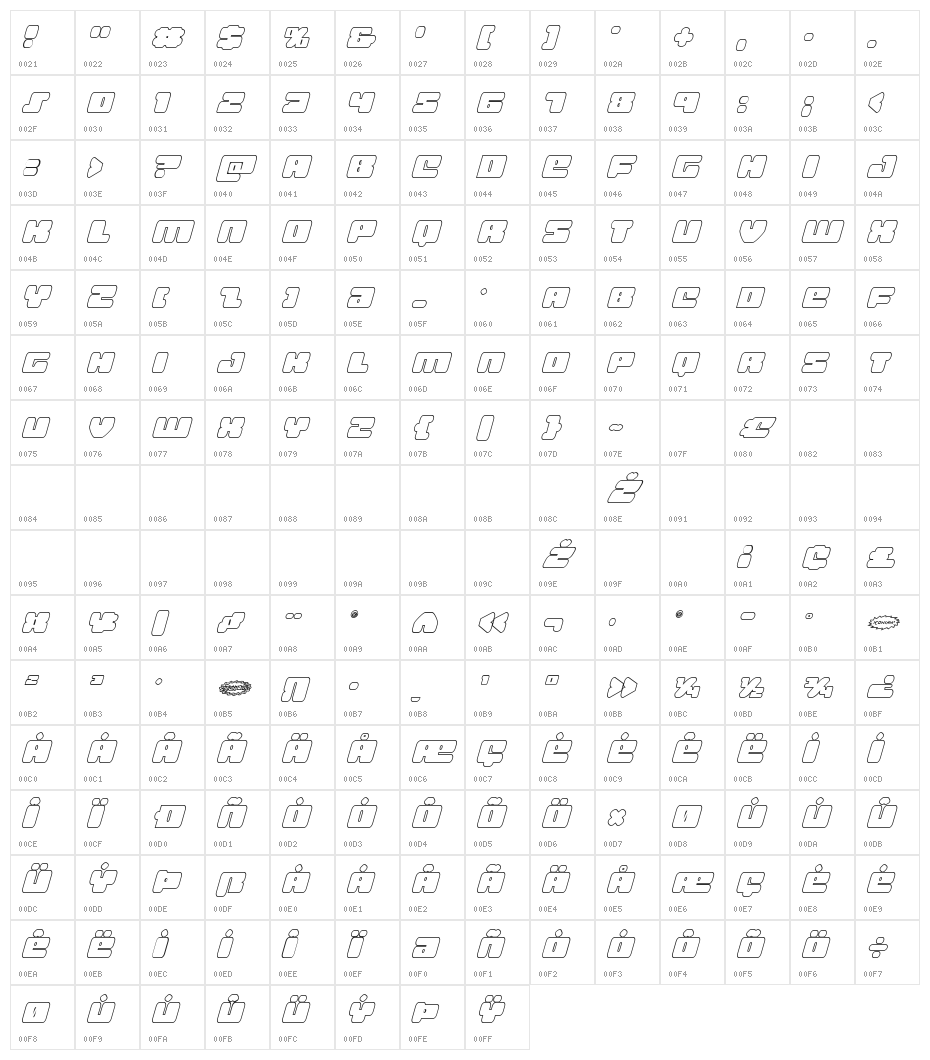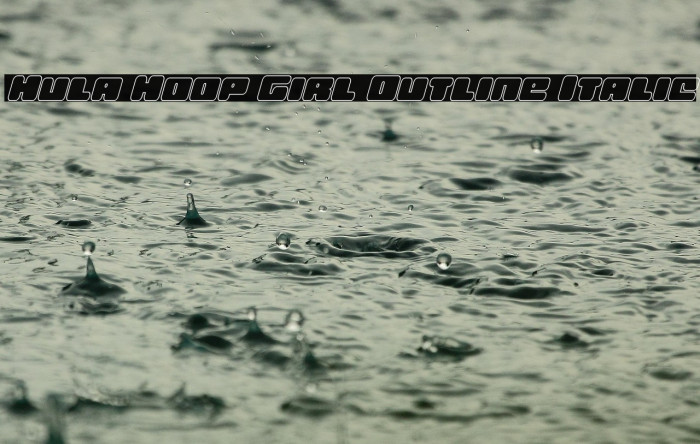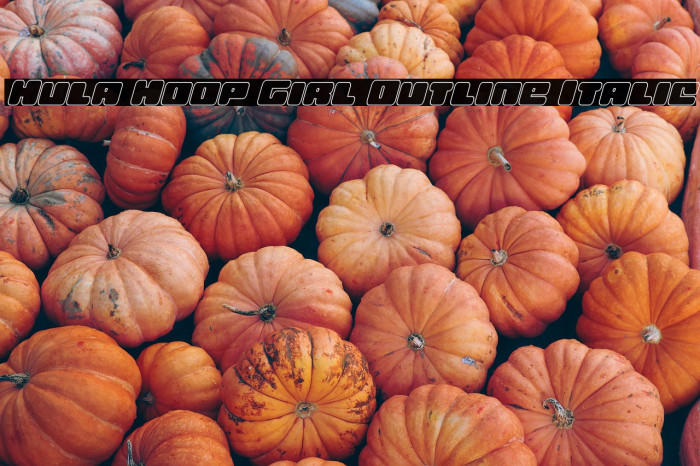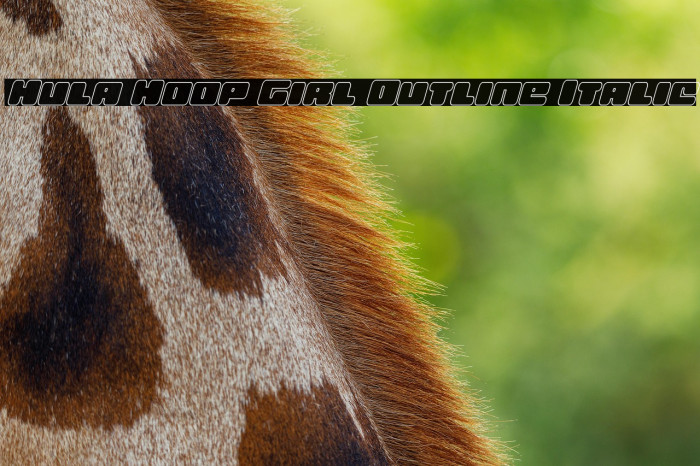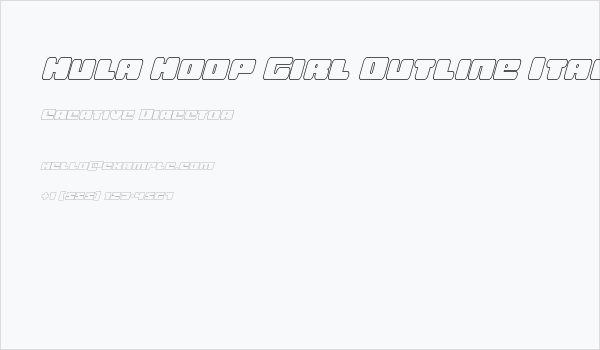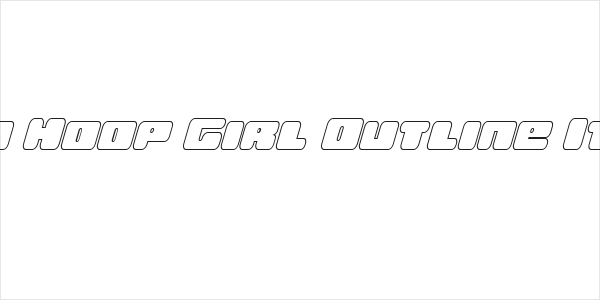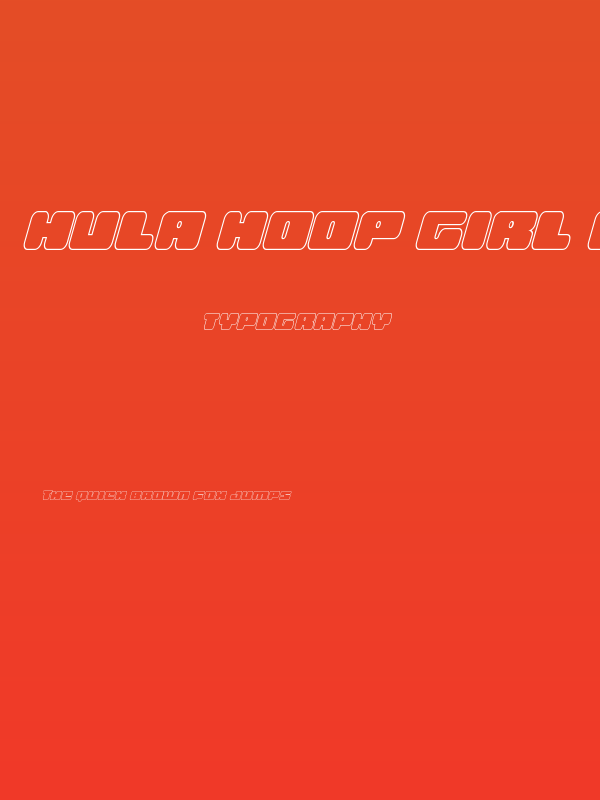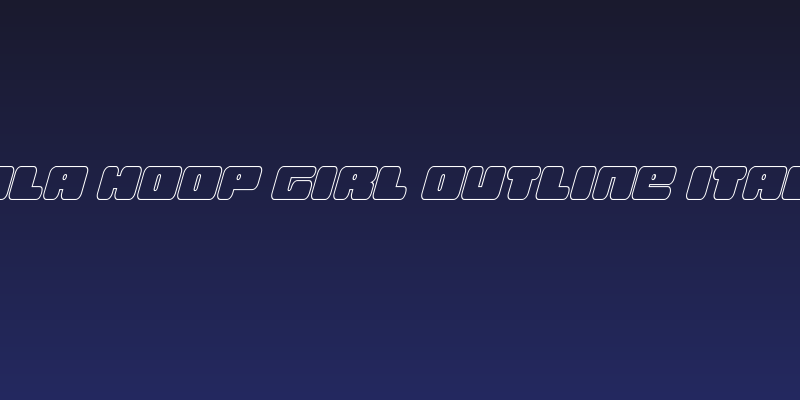
Hula Hoop Girl Outline Italic Font
Hula Hoop Girl Outline Italic Description
This font features a playful, rounded outline style with a modern twist. Each character is designed with a bold, bubble-like contour that gives it a three-dimensional appearance. The italic slant adds a dynamic feel, making it suitable for creative and energetic designs. The uppercase and lowercase letters maintain a consistent width, contributing to a uniform look. Numbers and special characters are crafted with the same attention to detail, ensuring a cohesive appearance across all text. The font's unique style is both eye-catching and versatile, making it ideal for projects that require a fun and engaging aesthetic.